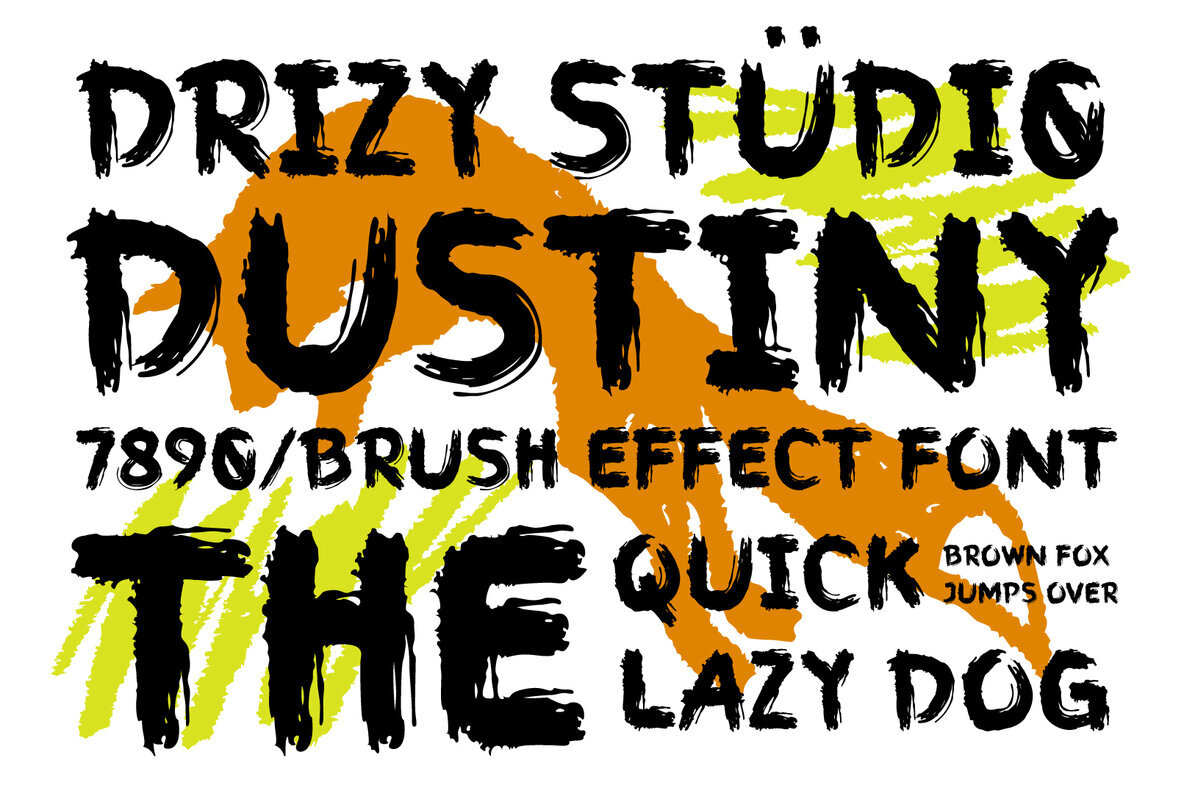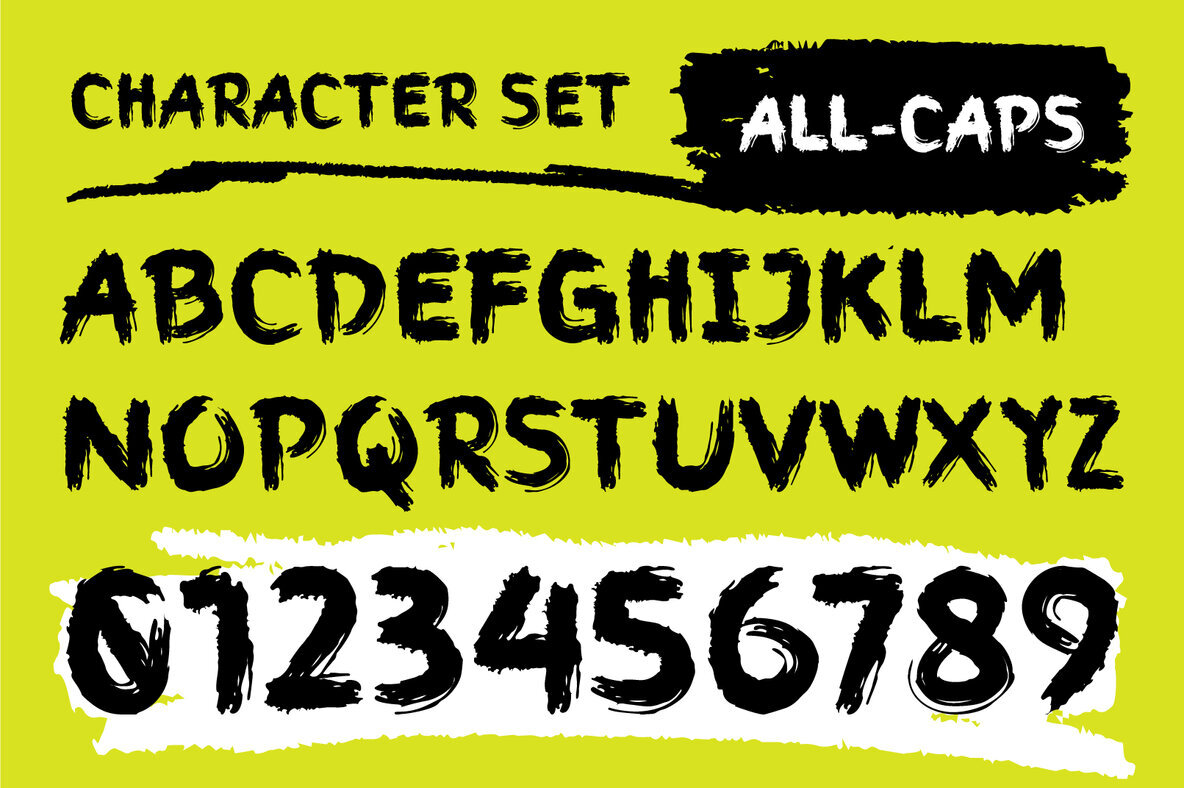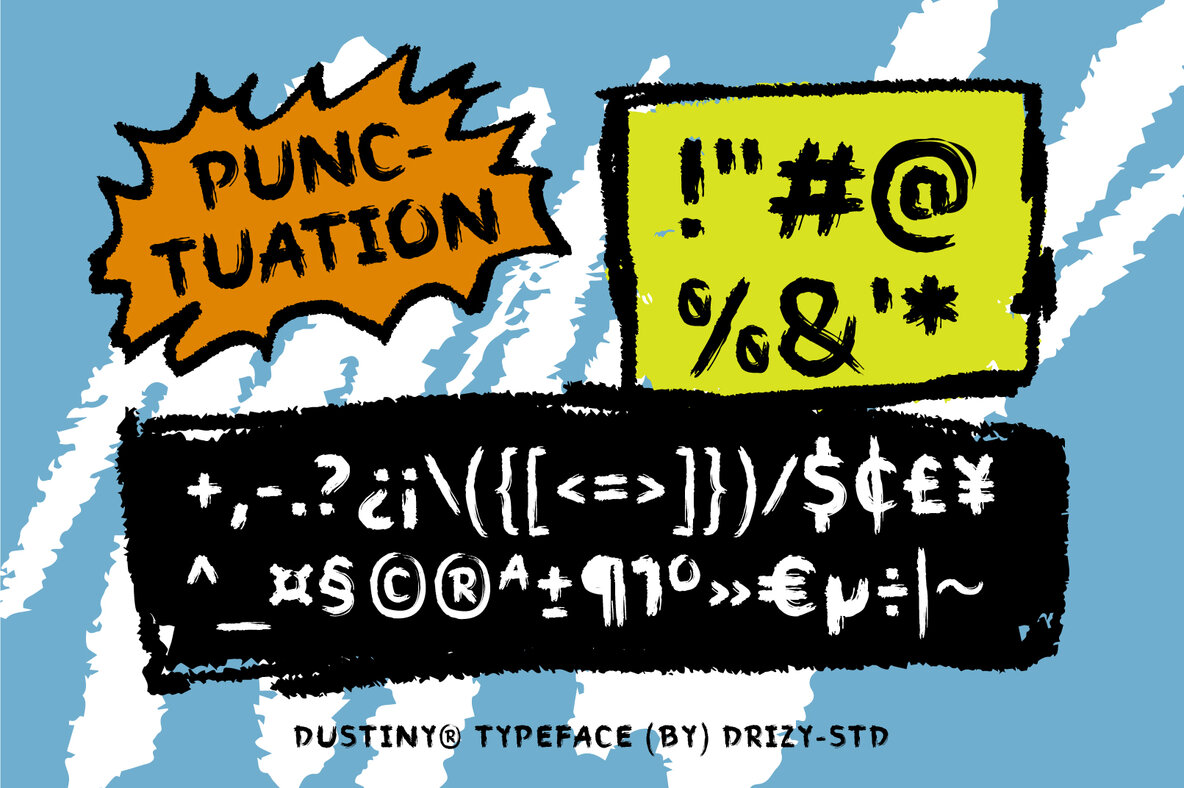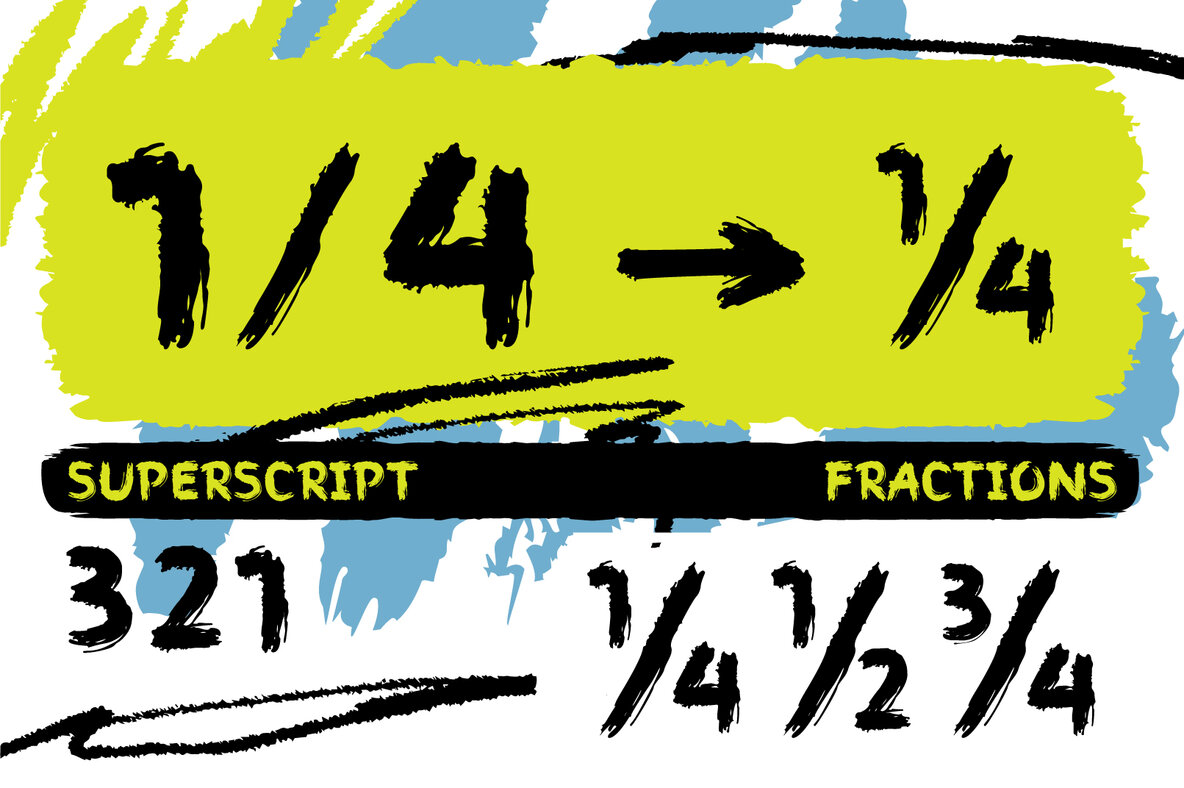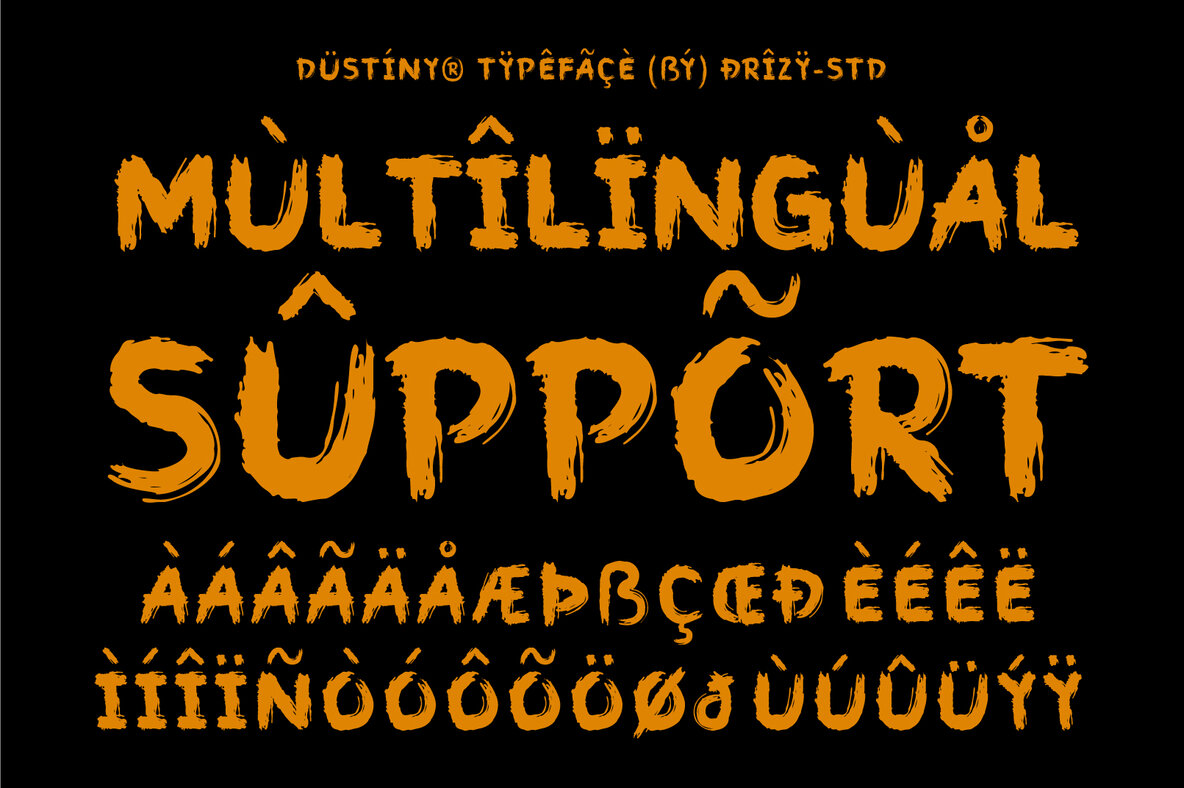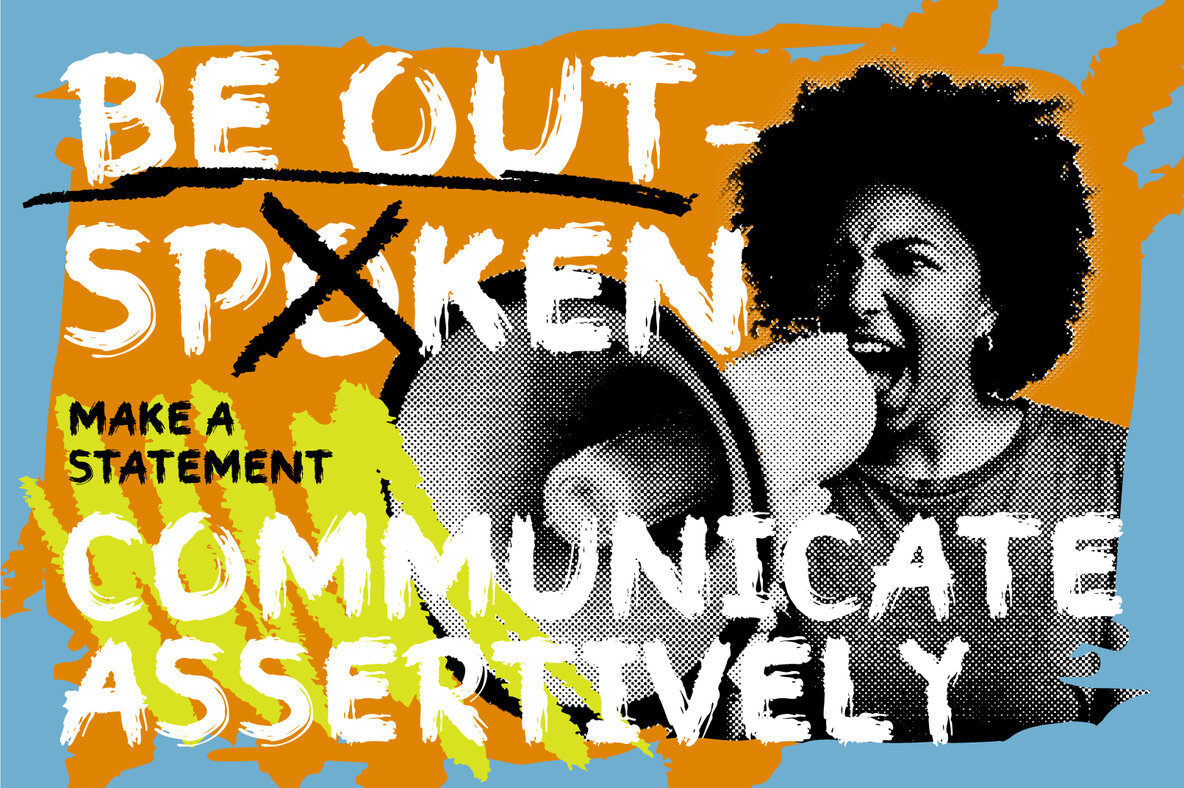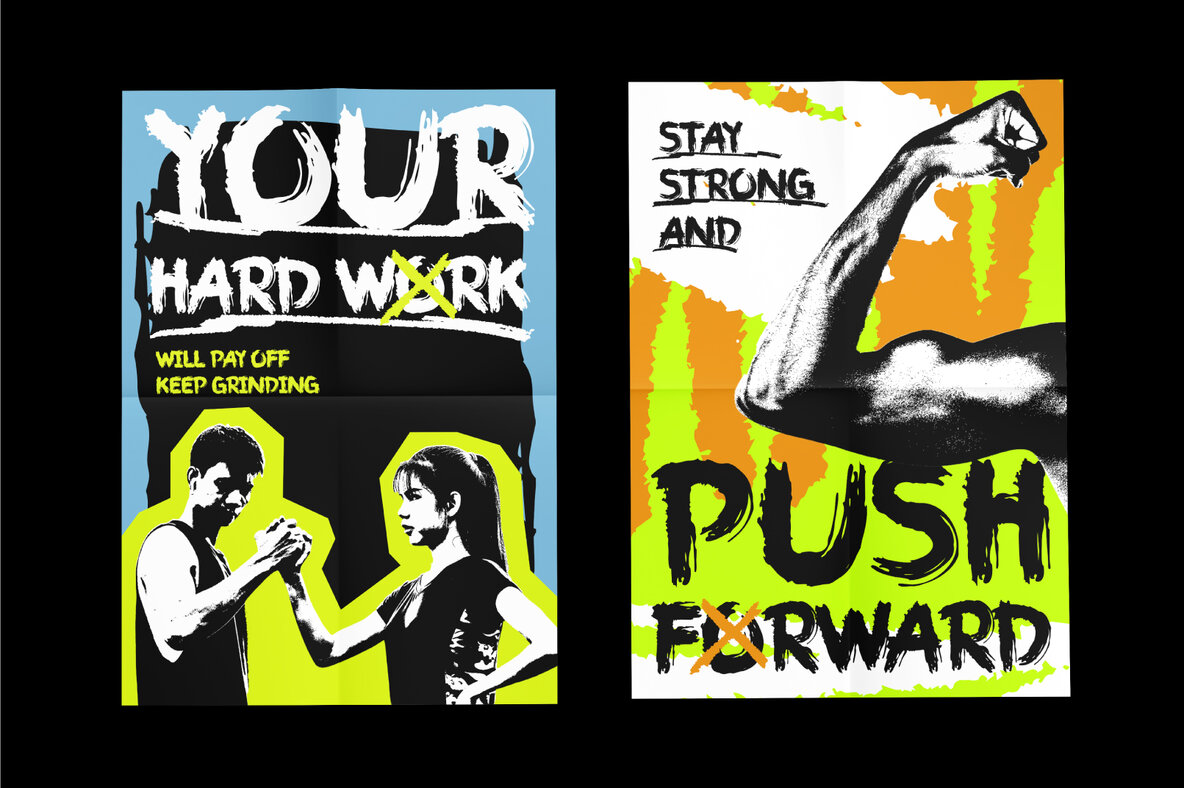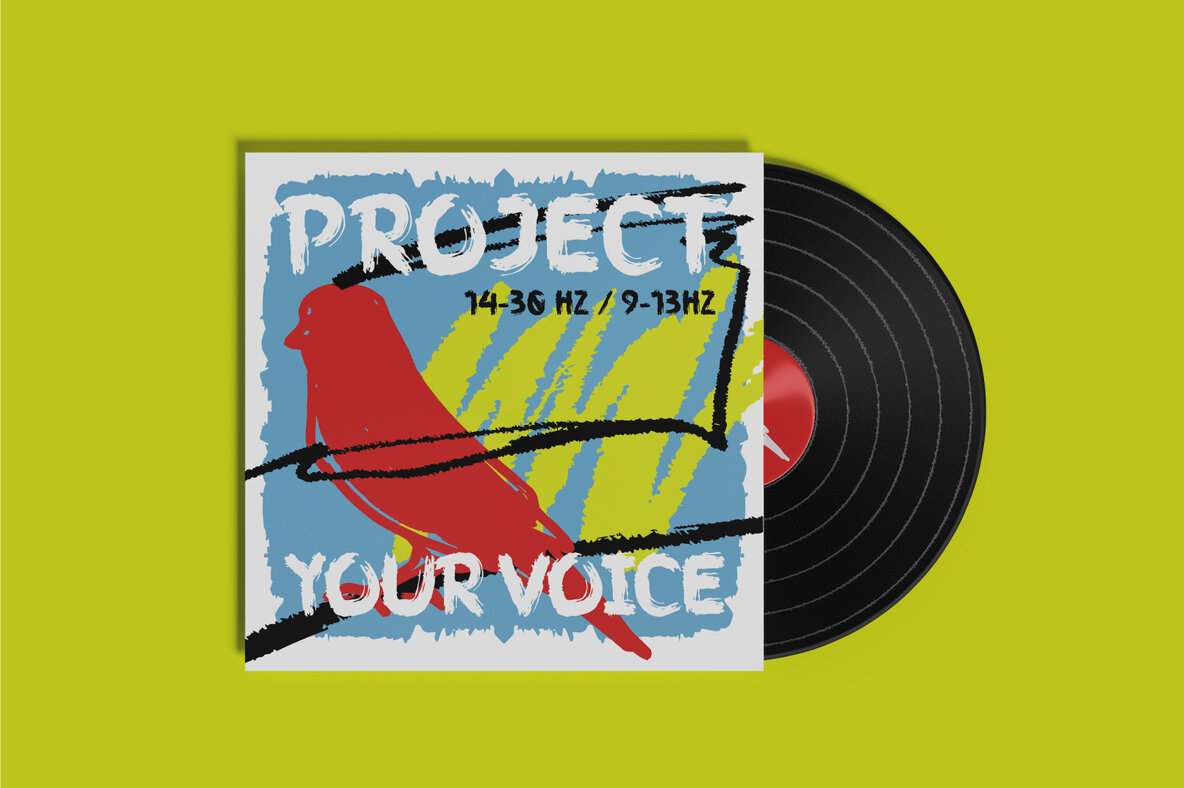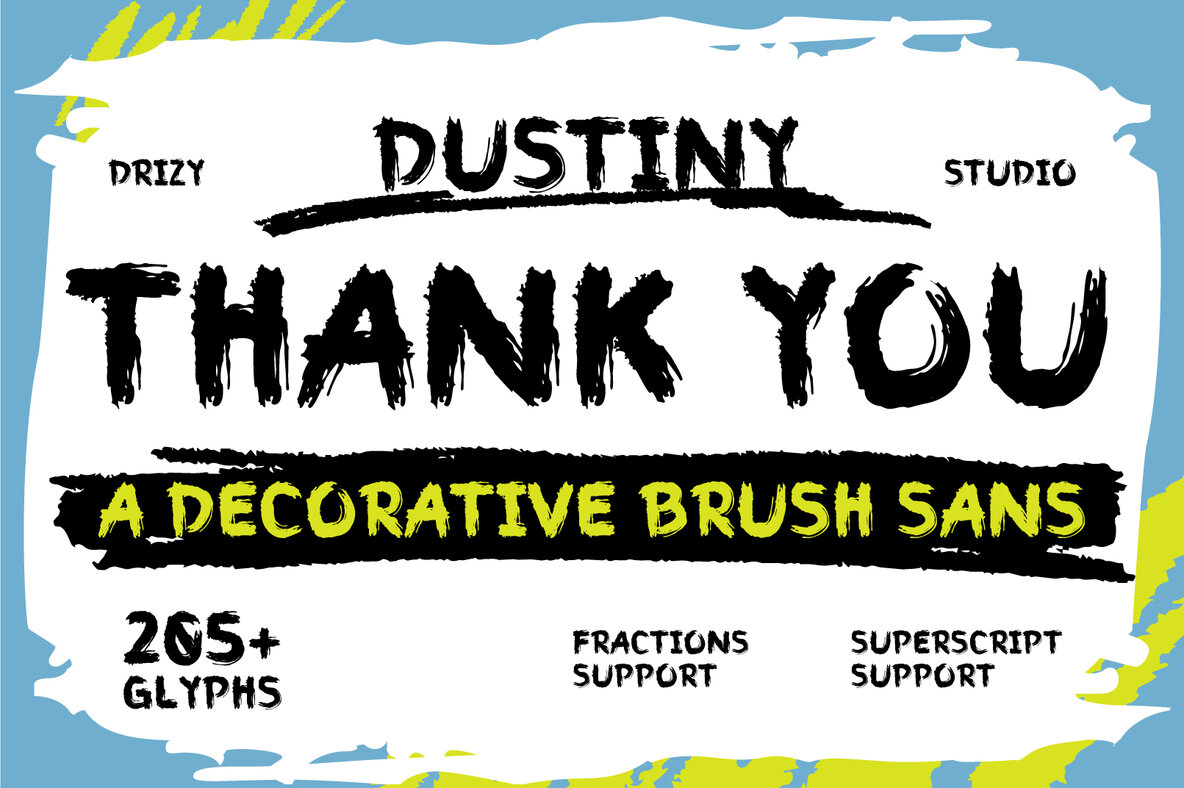
Dustiny Font
Dustiny Regular
"Dustiny" is a distinctive decorative brush sans serif font that combines the raw energy of brush strokes with the edgy vibe of grunge pointillism. Crafted for designers looking to add depth, texture, and a unique voice to their projects, this font serves as an artful statement piece. Ideal for digital and print designs, "Dustiny" adds a canvas of emotions and styles, making every piece it graces stand out.
Key features of "Dustiny" include a comprehensive character set, punctuation, numbers, and multilingual support. This versatile grunge brush font opens up endless design possibilities, allowing you to create striking visuals that leave a lasting impression. Embrace the bold and artistic essence of "Dustiny" to enhance your creative projects.